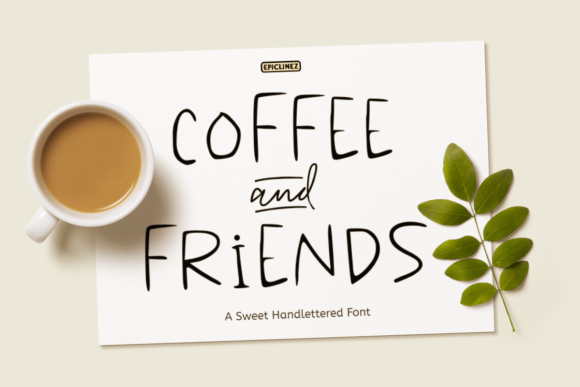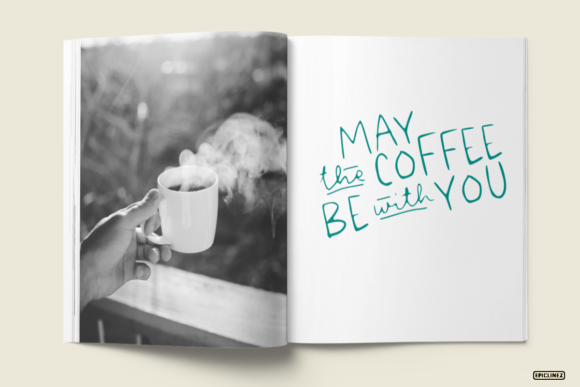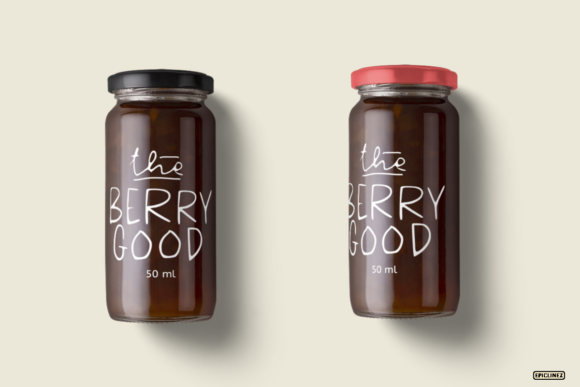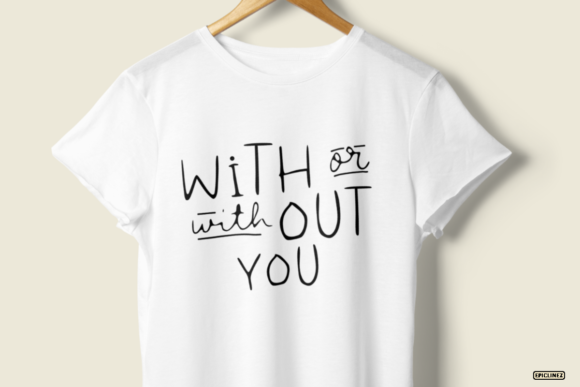
Coffee & Friends Font
About Coffee & Friends Font
Coffee & Friends is a sweet and friendly handwritten font. Its natural and unique style makes it incredibly fitting to a large pool of designs. The only limit is your imagination!